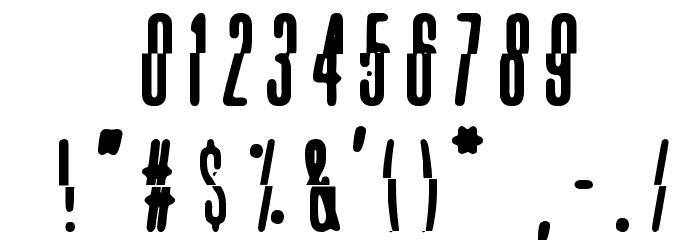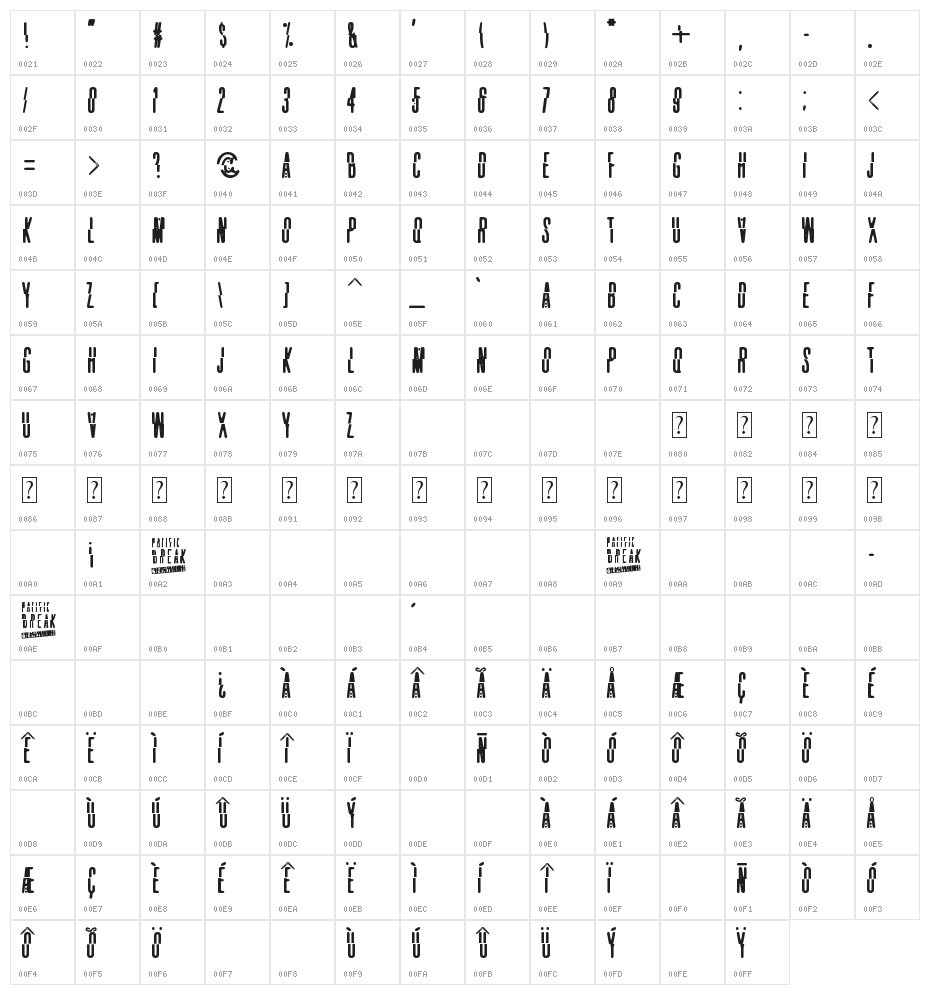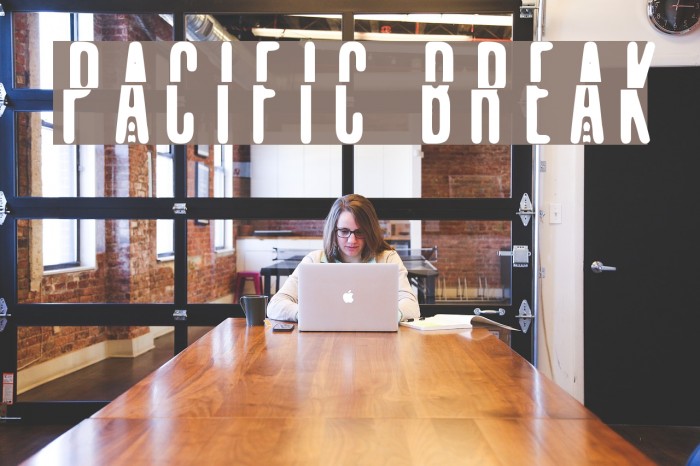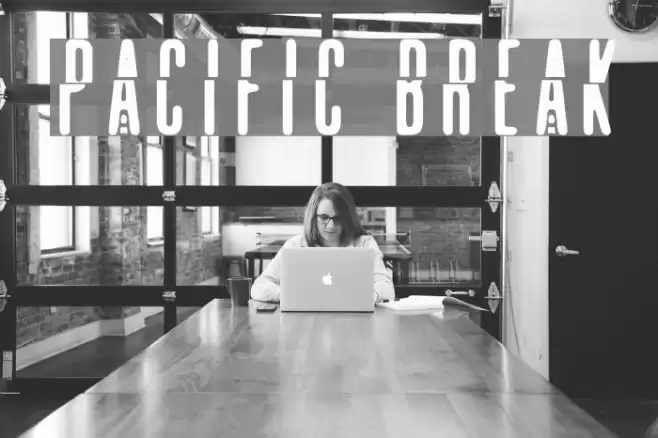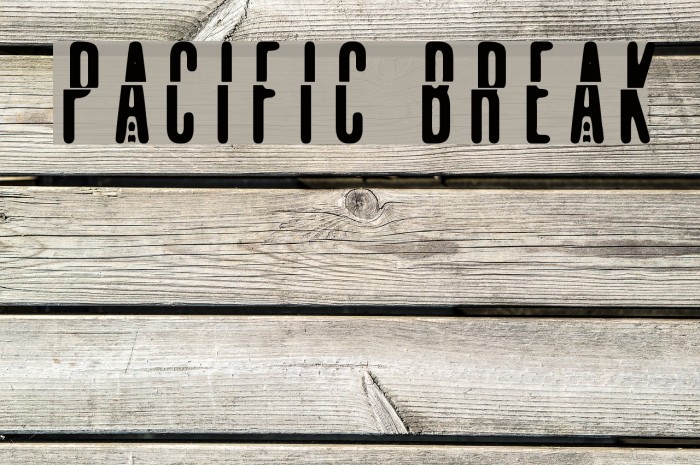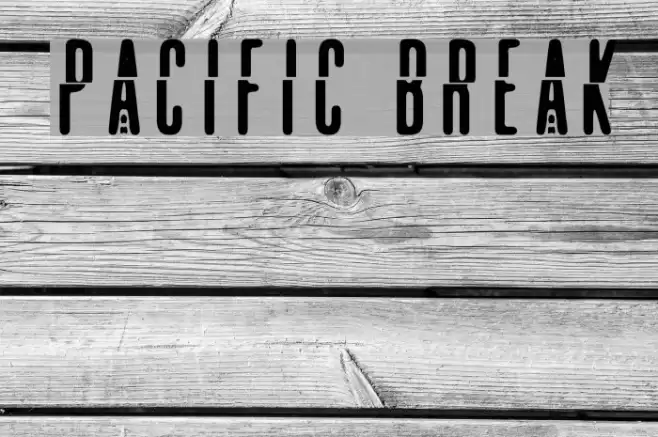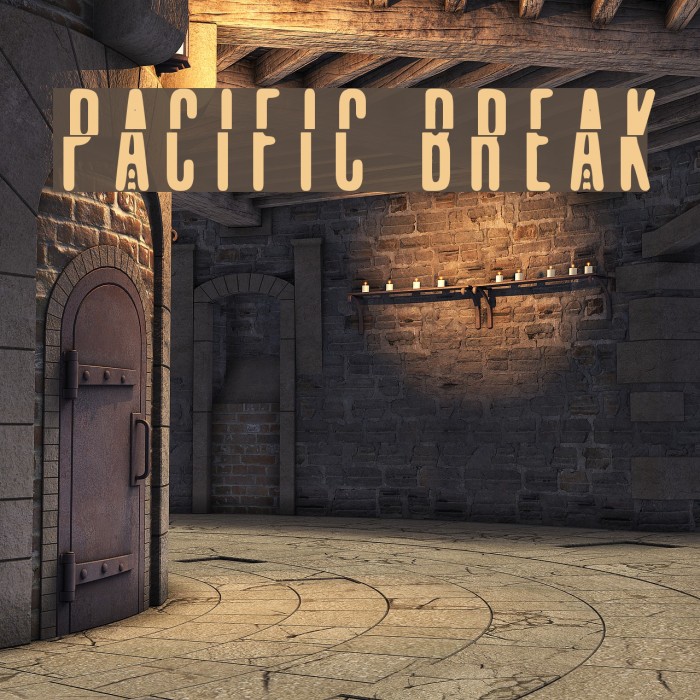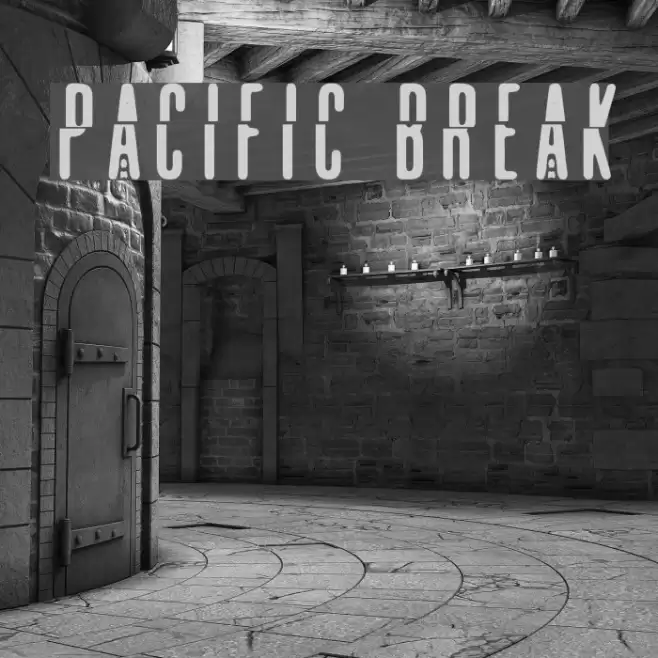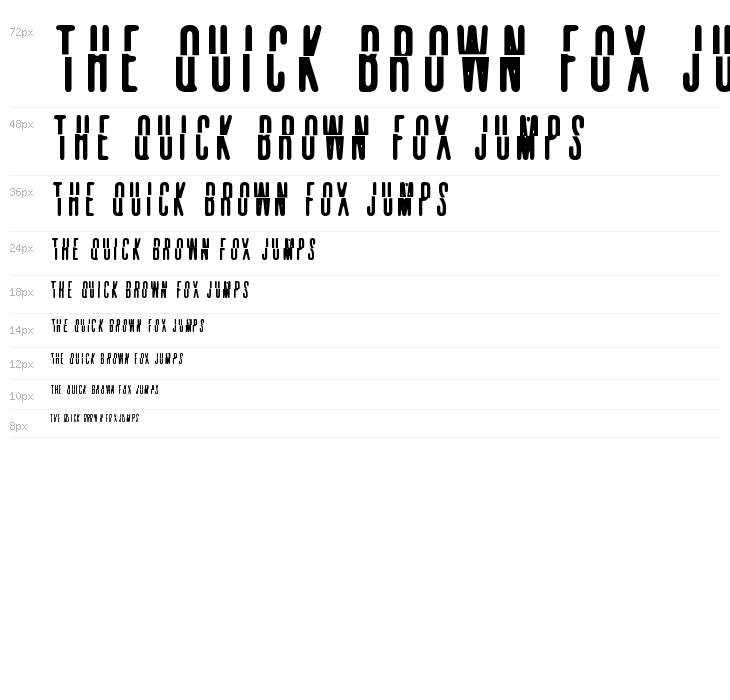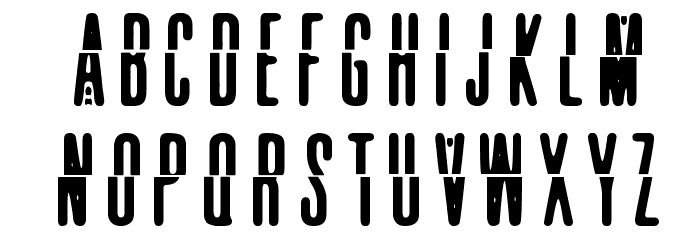
pacific break Font
pacific break Description
This font features a bold and striking design with a unique split effect in each character, creating a dynamic and eye-catching appearance. The uppercase and lowercase letters maintain a consistent style, with the top and bottom halves of each character slightly offset, adding a sense of movement and modernity. The numbers and special characters follow the same design principle, ensuring uniformity across all glyphs. The font's thick strokes and high contrast make it particularly suitable for impactful headlines and titles. Its decorative nature lends itself well to creative projects where a bold statement is desired.
| Proposed Projects | This font is perfect for poster designs, branding projects, album covers, and any creative work that requires a bold and modern aesthetic. |